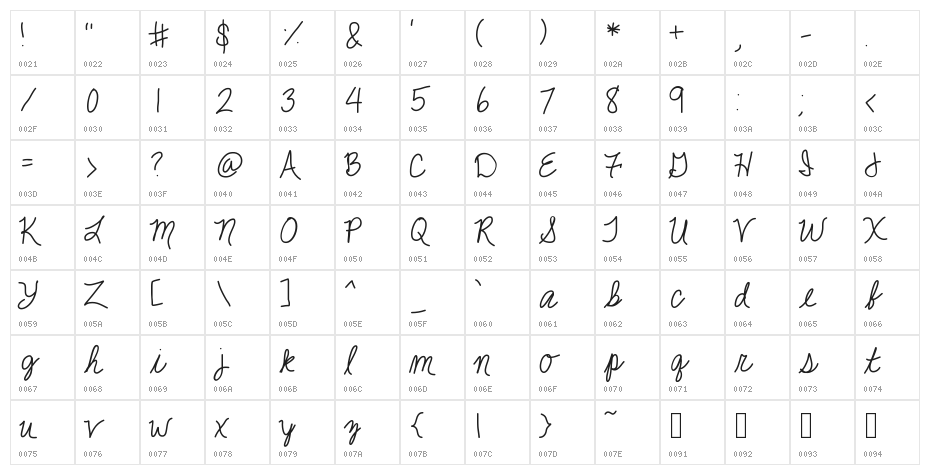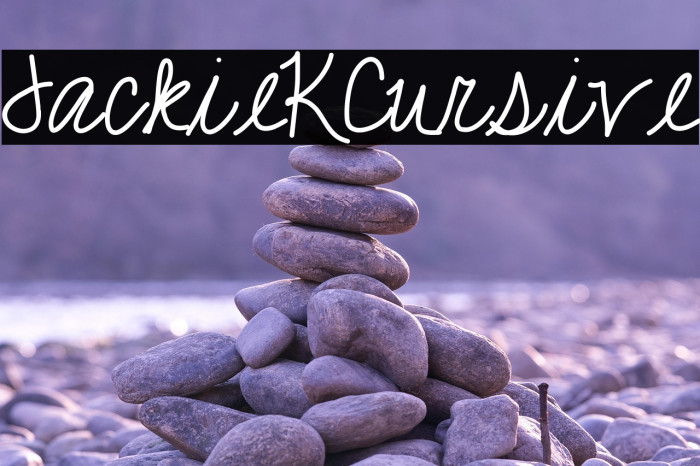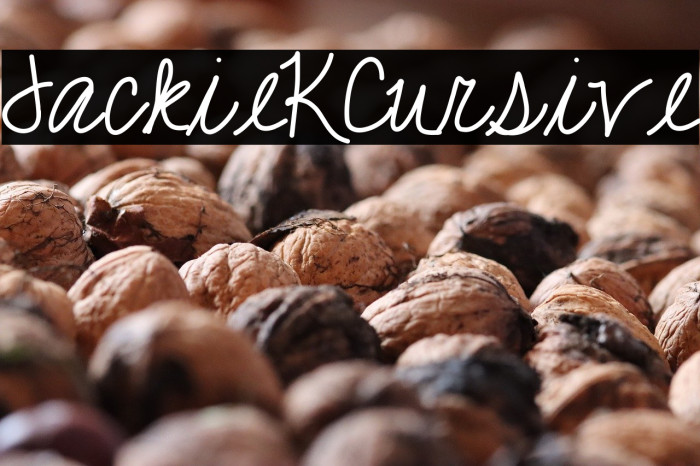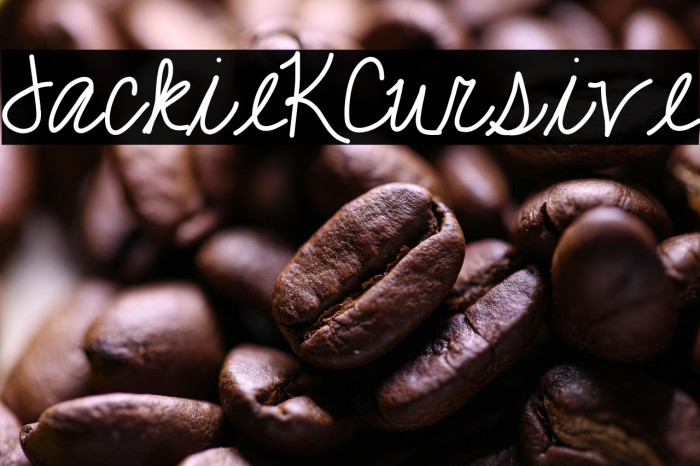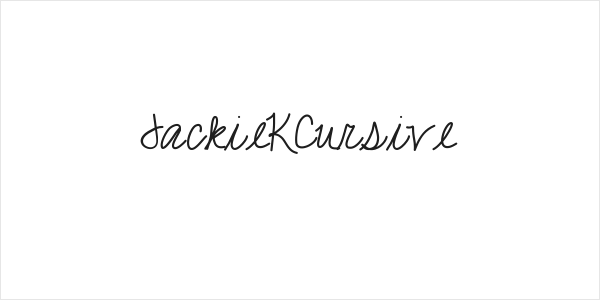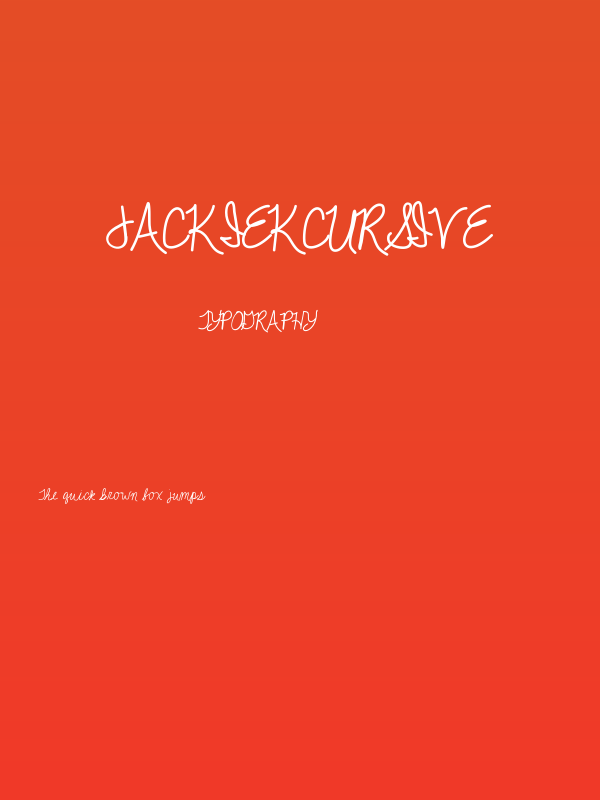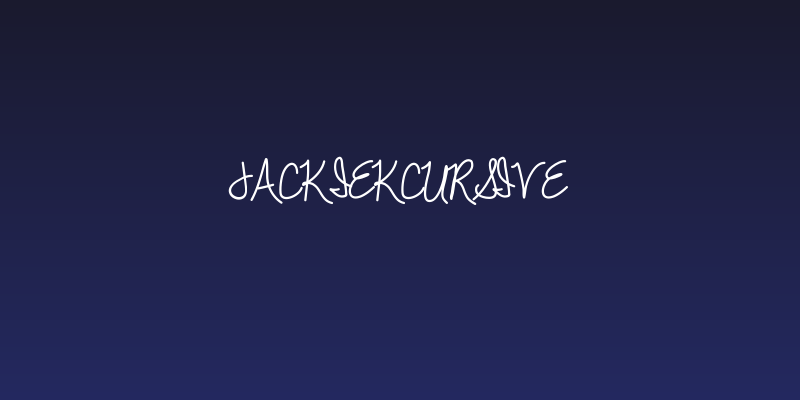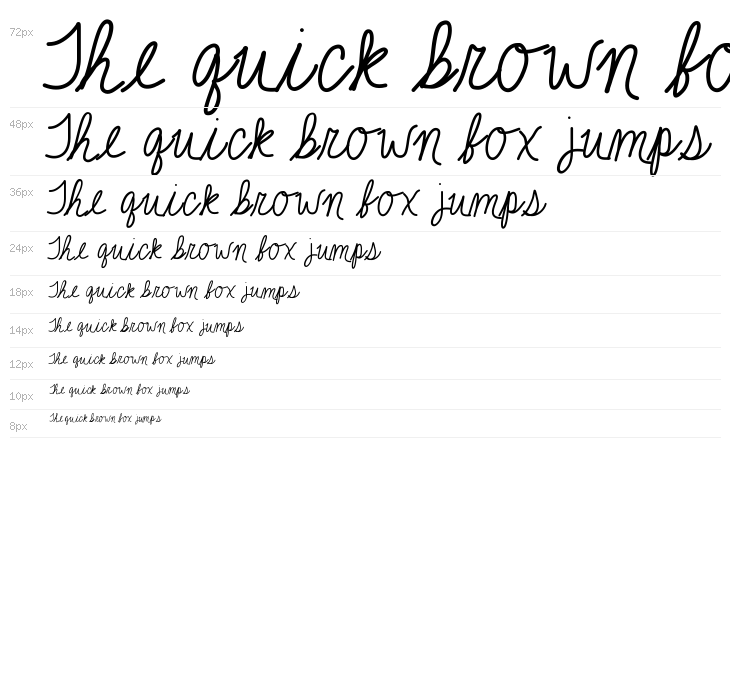
JackieKCursive Font
JackieKCursive Description
This font exudes a casual and flowing handwritten style, characterized by its smooth, cursive strokes and natural, organic feel. Each letter connects seamlessly to the next, creating a harmonious and fluid appearance. The uppercase letters are slightly more structured, while the lowercase letters maintain a relaxed and informal vibe. The numerals and special characters are consistent with the overall cursive theme, ensuring a cohesive look across all elements. This font is perfect for projects that require a personal touch, such as invitations, greeting cards, or any design that benefits from a handwritten aesthetic.
| Proposed Projects | Ideal for invitations, greeting cards, personal notes, and any design needing a handwritten touch. |